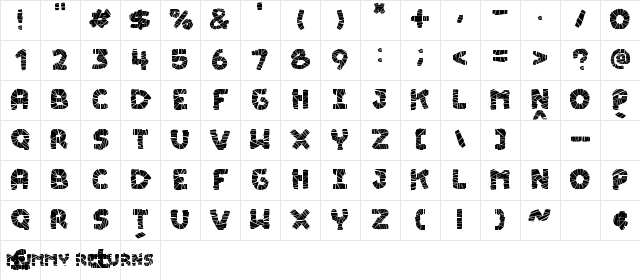
The Mummy Returns Regular
Designer: Joseph Dawson
Design Context for The Mummy Returns
The Mummy Returns is a composed and adaptable typeface that performs quietly and consistently across a wide range of design contexts.